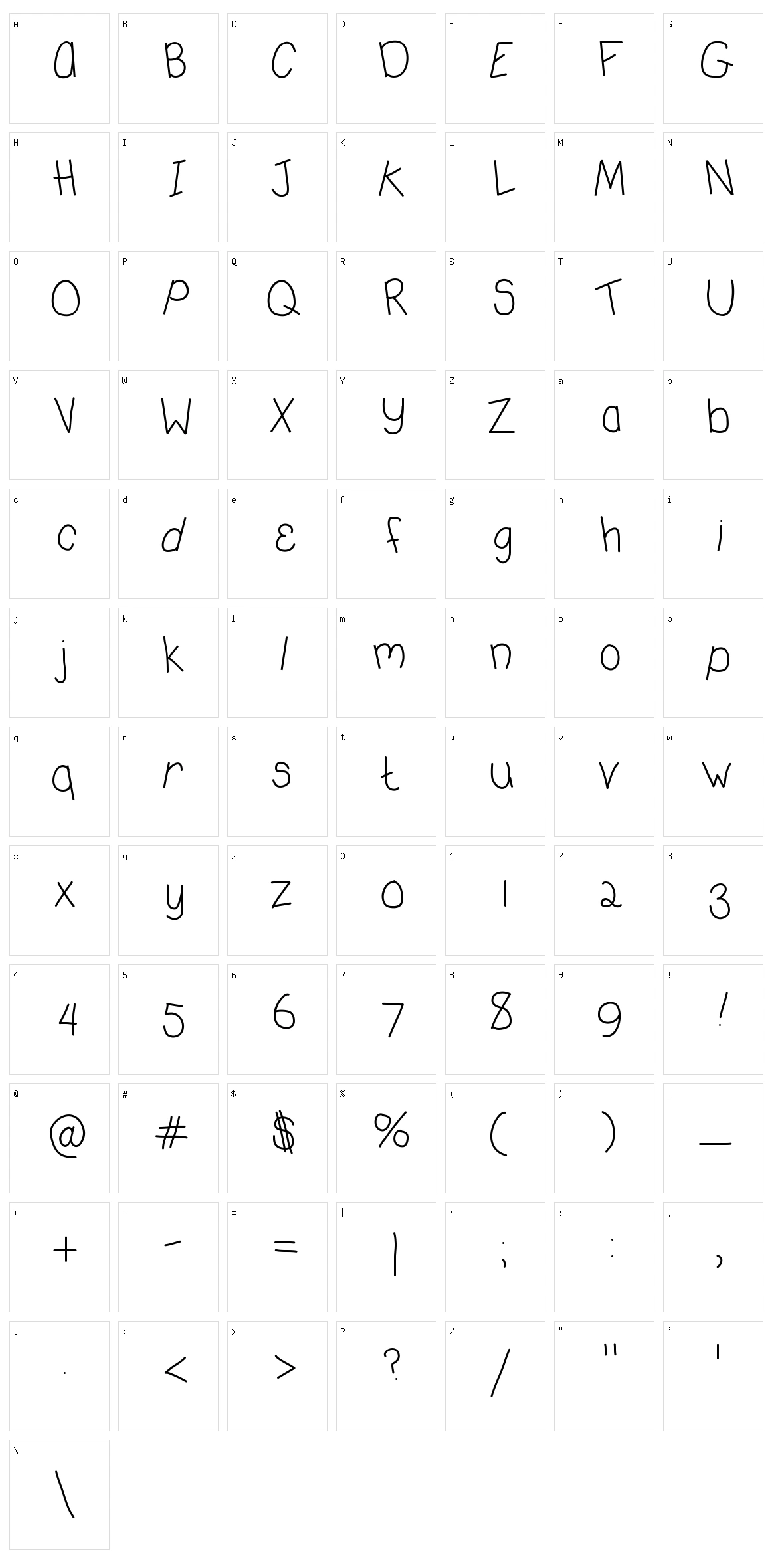
The free font DeeDee Koolaid is carefully designed by D D, showcasing a thoughtful balance of creativity and usability and falls under the Cartoon font style. When you download the ZIP file, it contains only 11.55 KB of font files, making it lightweight and quick to download. Please review the license details below to understand permitted usage and distribution rights. If license information is not available, we recommend using this font for personal projects only or contacting the author directly for commercial usage permissions.